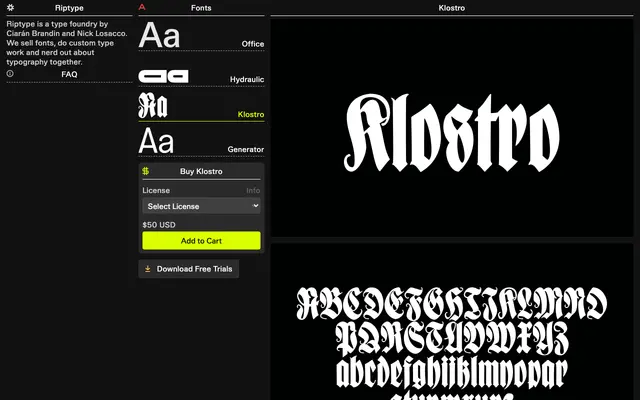
Klostro
A blackletter display typeface from Riptype with a name evoking monastic or gothic lettering traditions.
Klostro is a display typeface from Riptype whose name references the cloister traditions associated with blackletter script. The page content available is minimal, limiting detailed assessment of its weight range or language support. It sits within Riptype's broader catalogue of expressive, style-forward type.
The name 'Klostro' strongly suggests a blackletter or gothic style typeface, consistent with Riptype's known output; however, the page content is insufficient to confirm precise subcategory details.